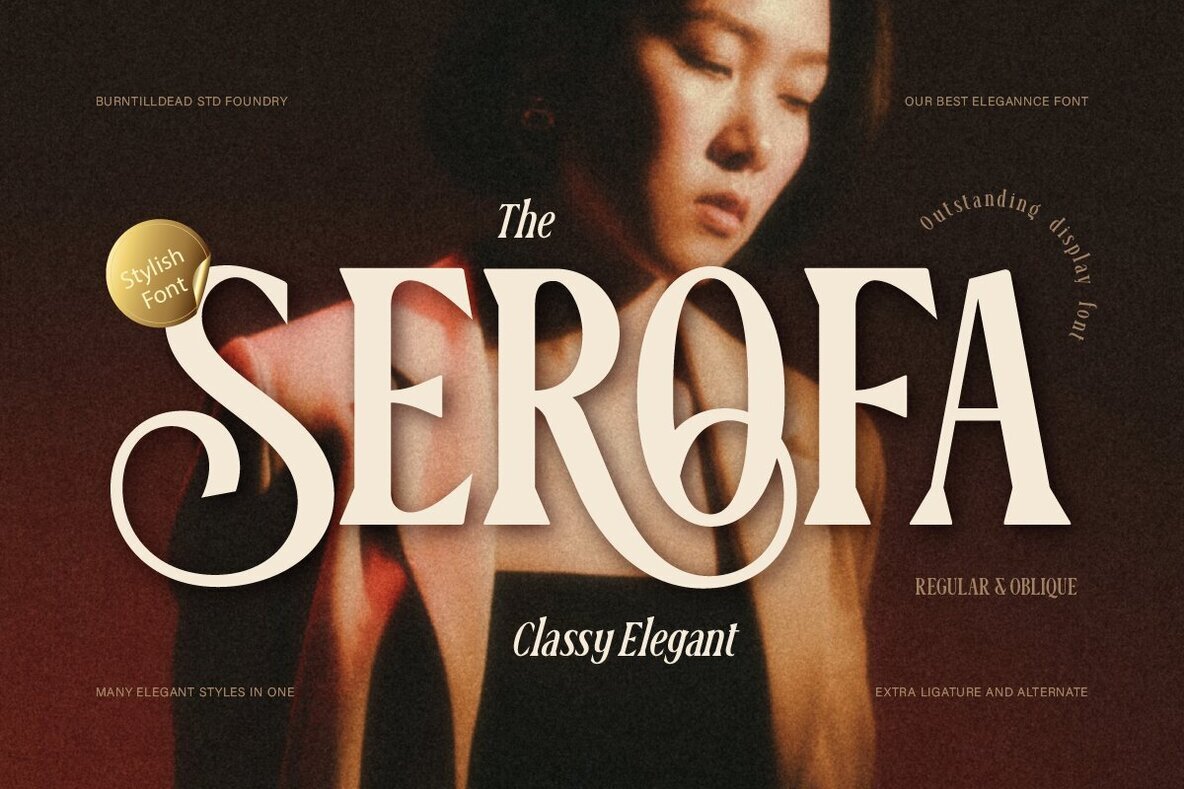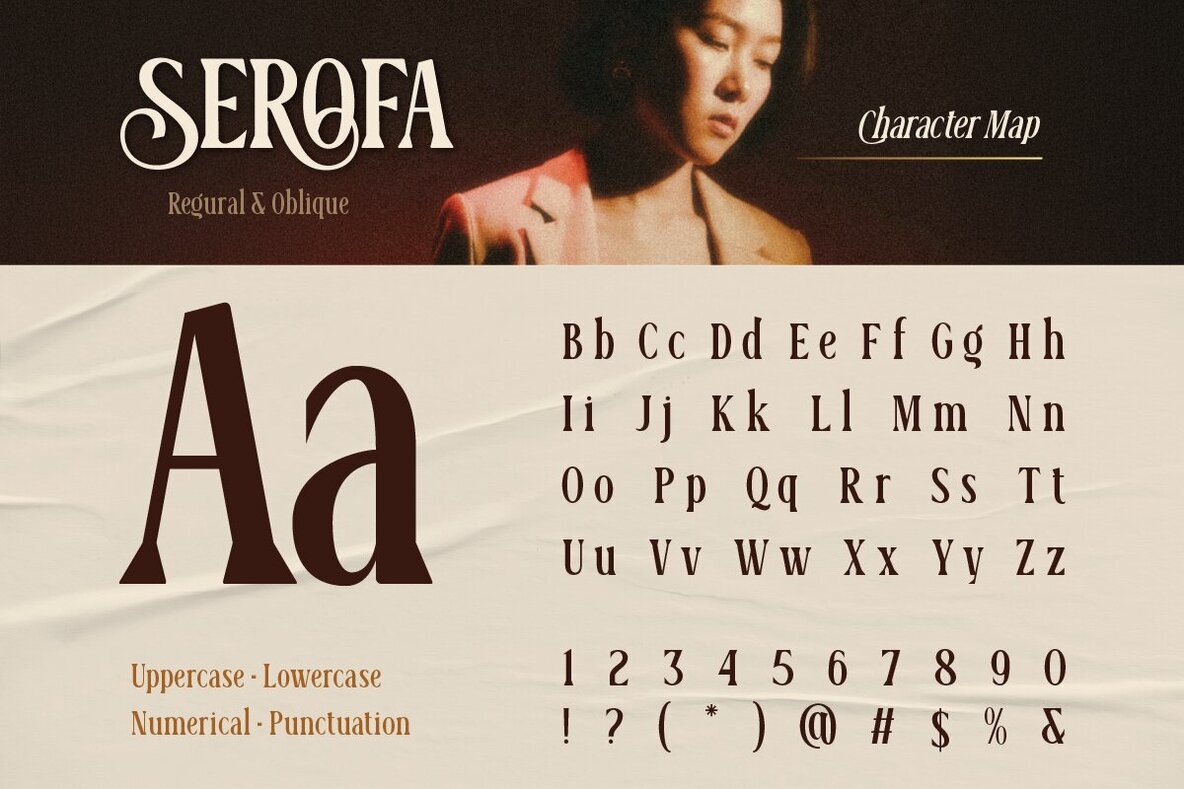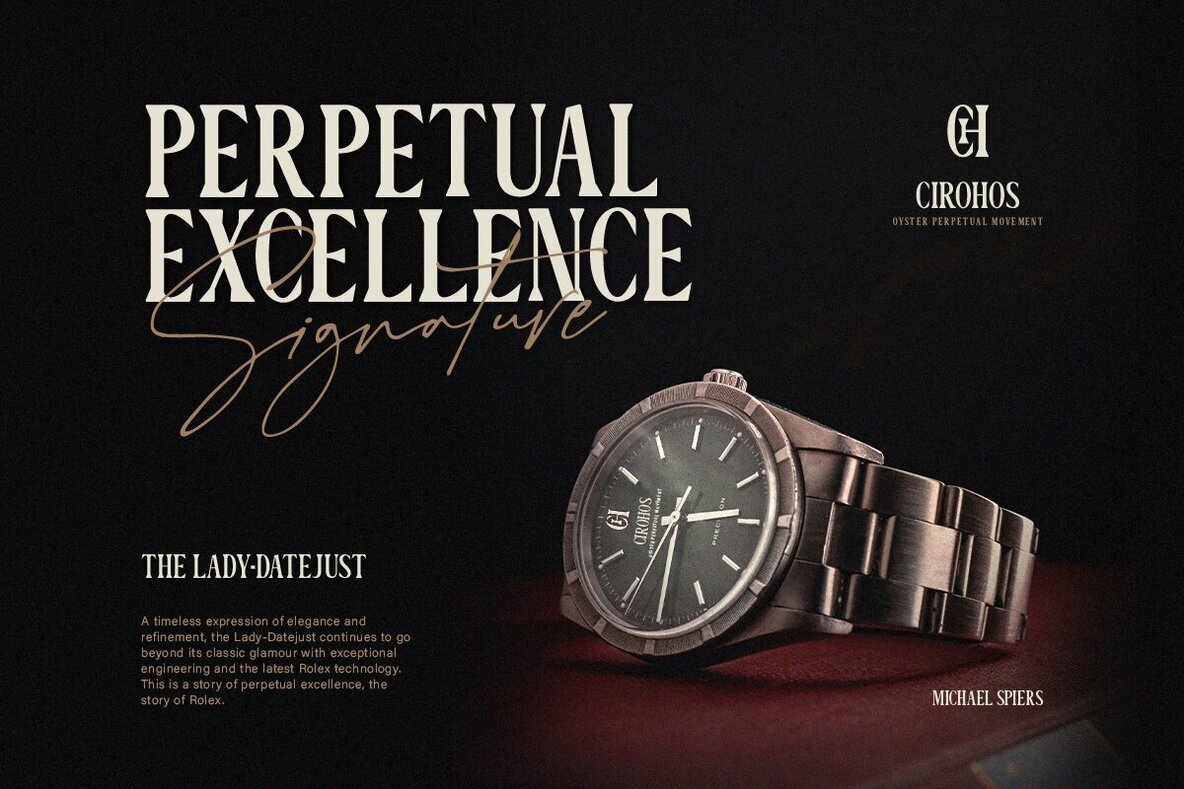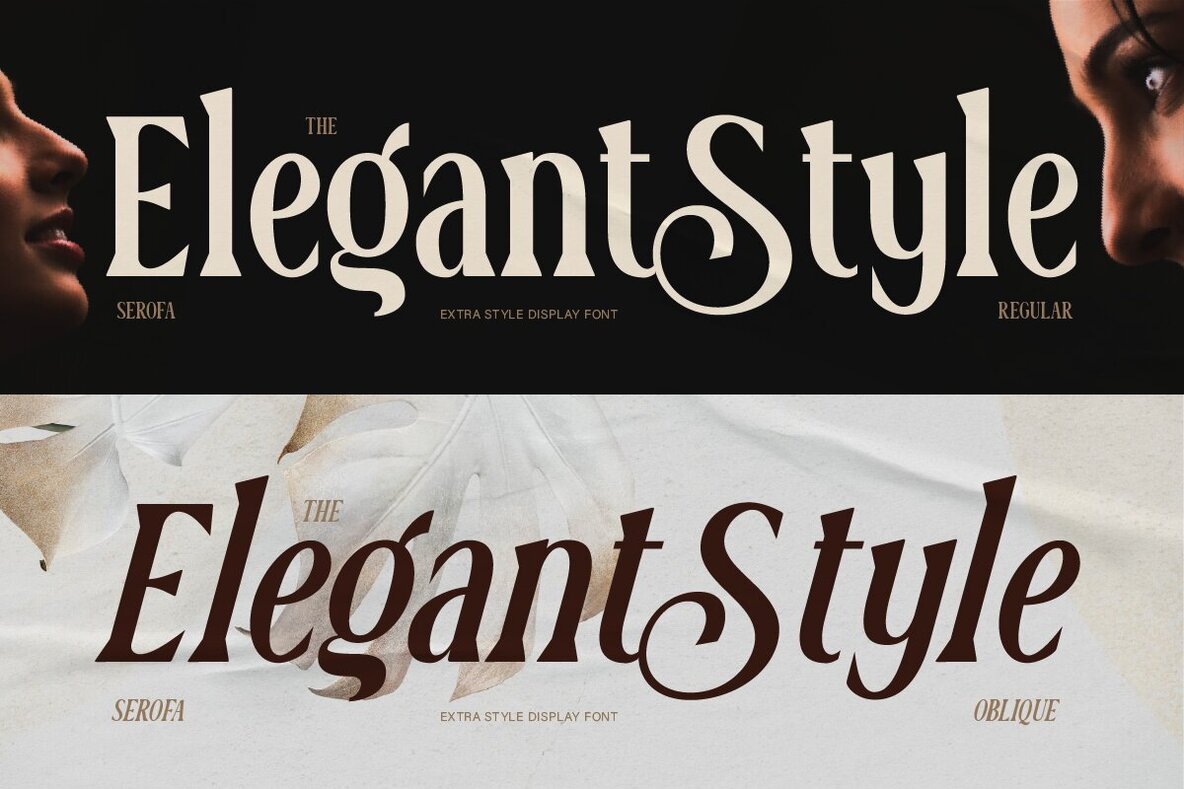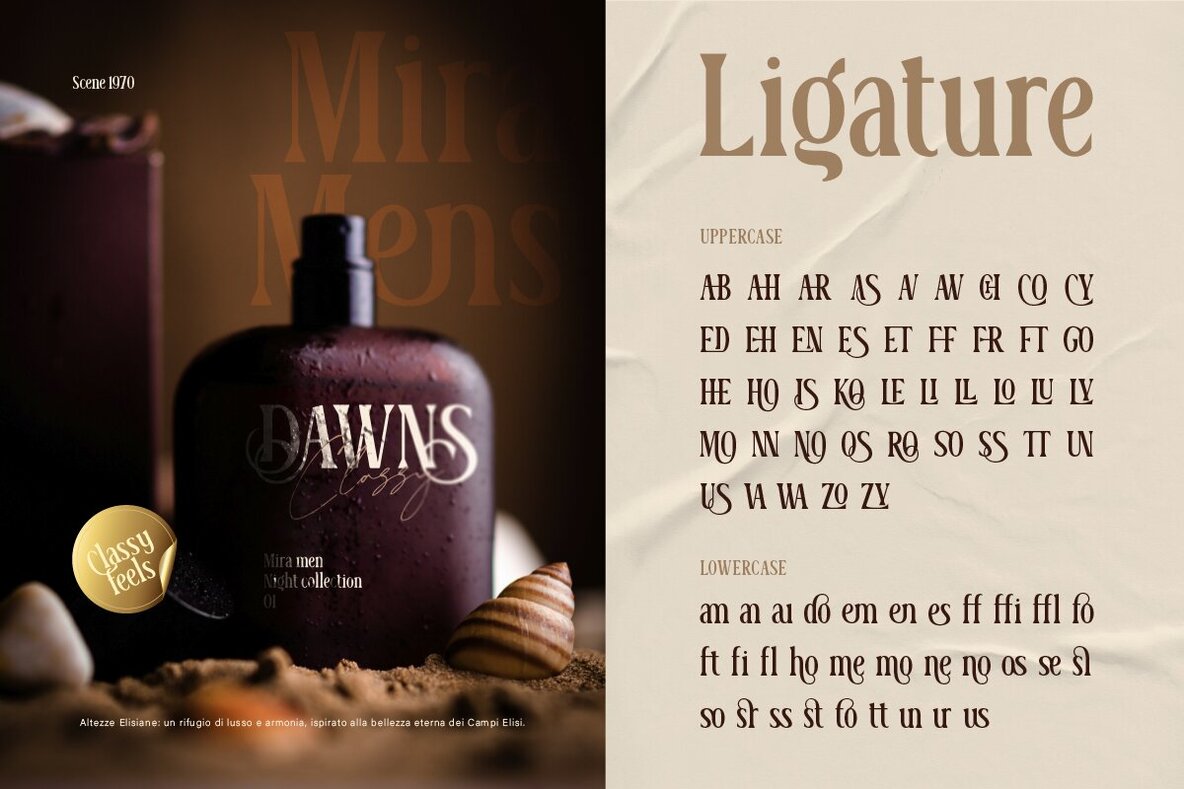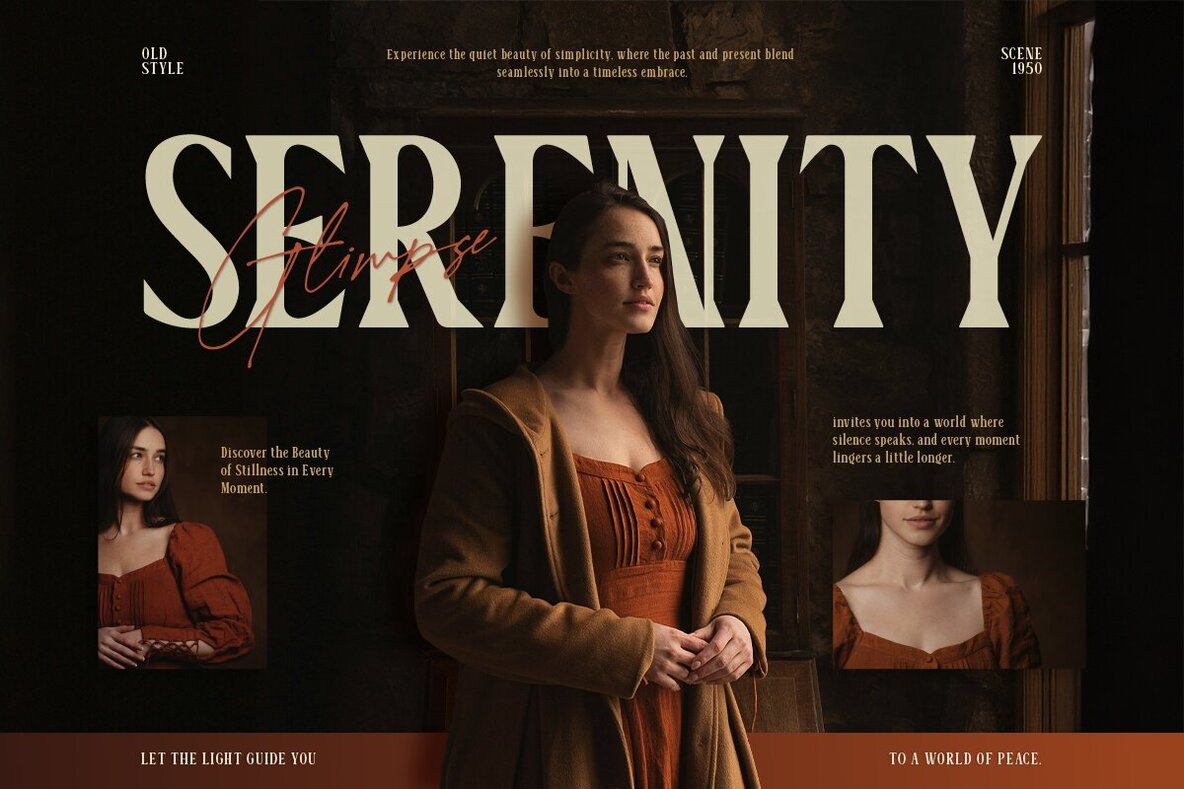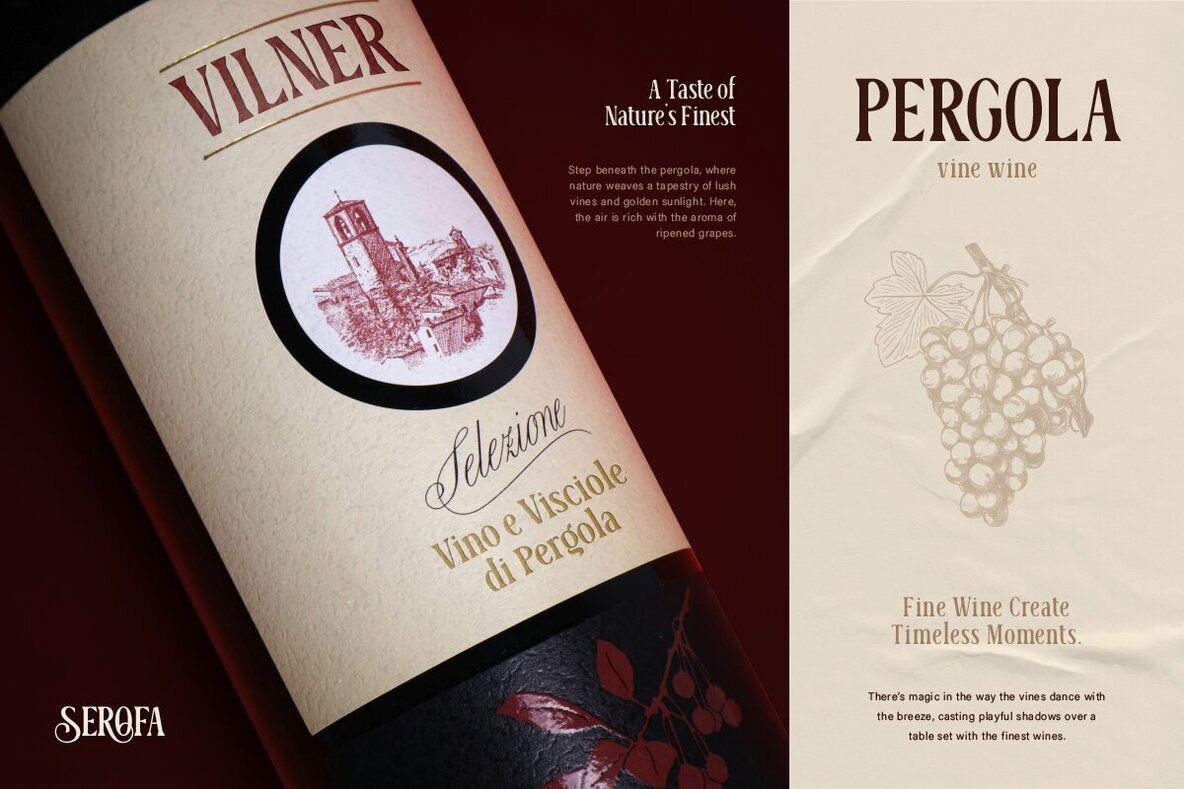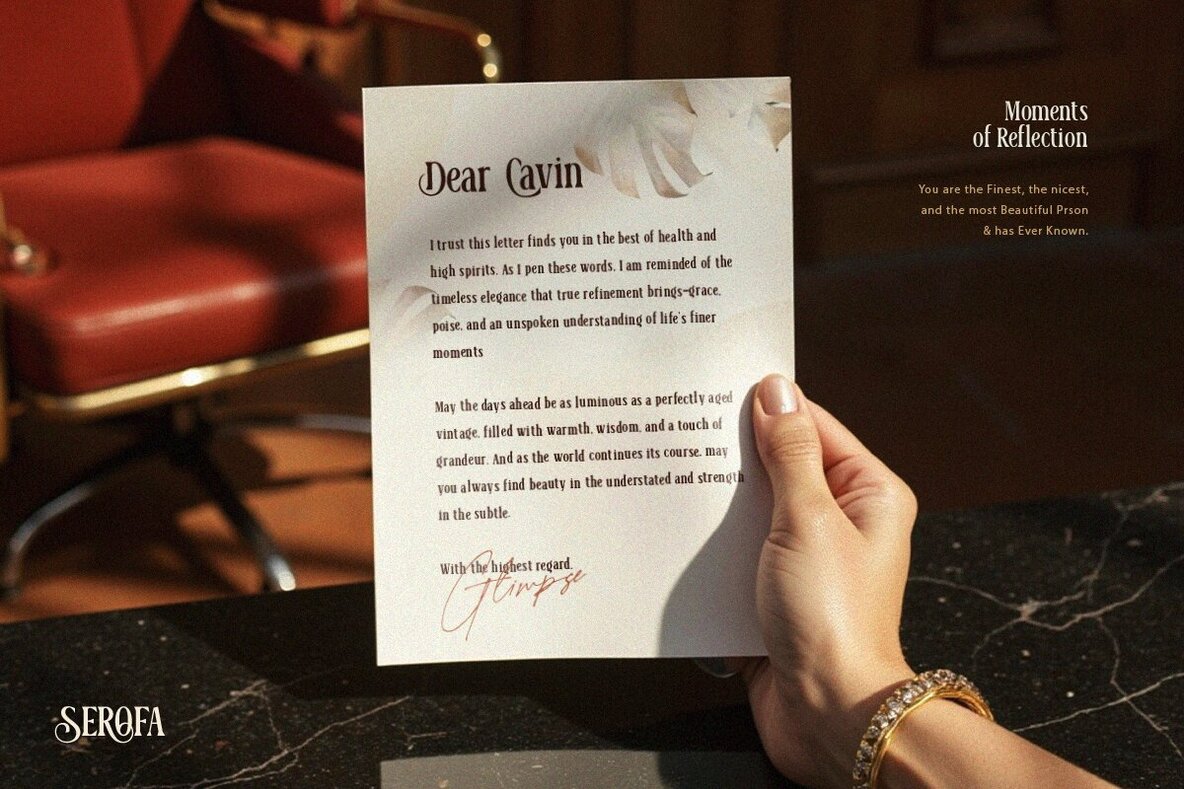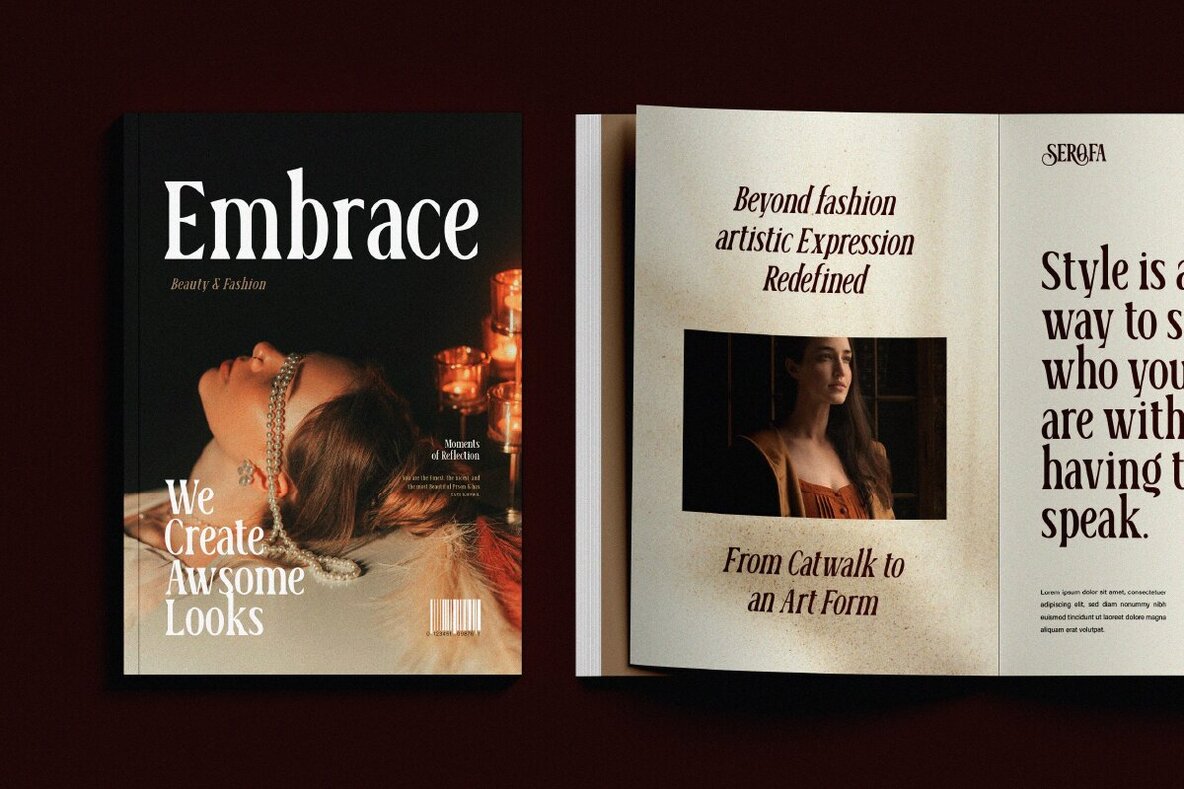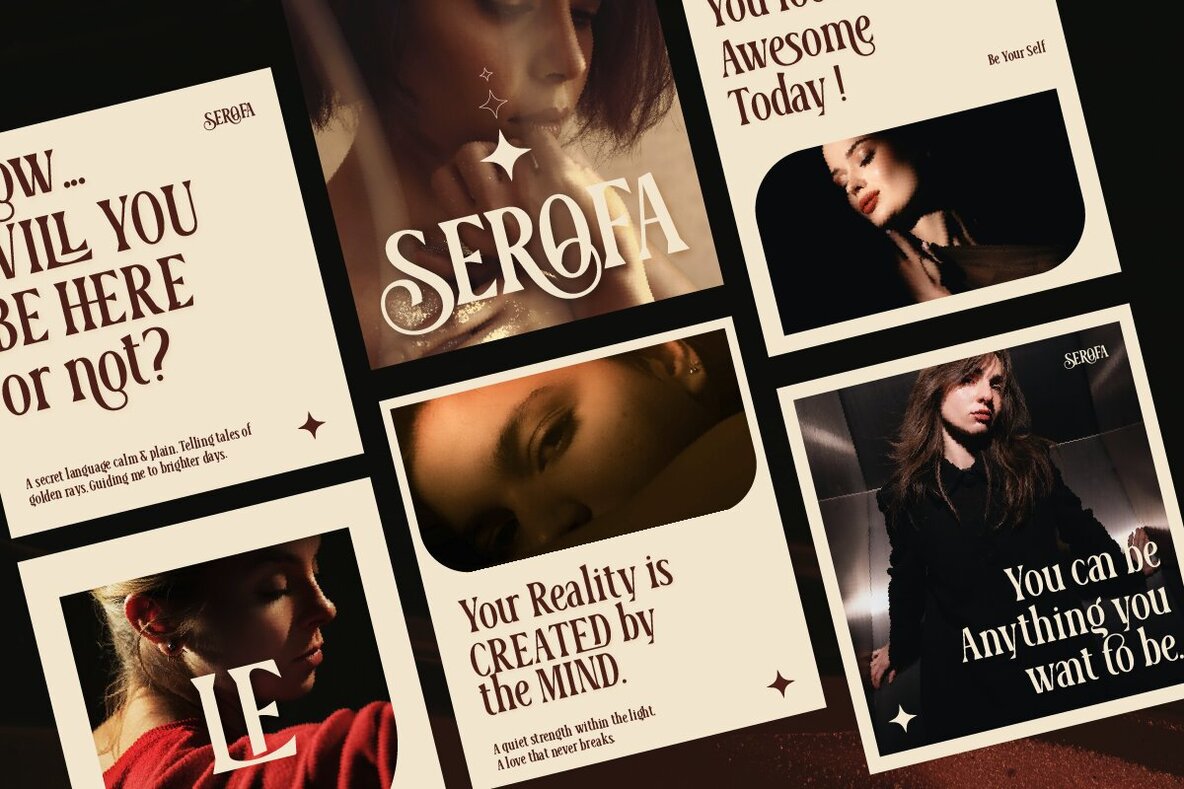
Serofa Font
Serofa Regular
Serofa Oblique
Meet Serofa, an elegant serif typeface that seamlessly merges traditional sophistication with modern luxury. Its bold letterforms and artistic curves deliver a powerful yet refined touch to your designs, offering the perfect blend of strength and elegance. Whether you're working on luxury branding or crafting captivating editorial layouts, Serofa's decorative curves and stylish ligatures will effortlessly elevate your aesthetic vision. Use Serofa for high-end fashion campaigns, chic magazine covers, sleek cosmetics packaging, sophisticated wedding invitations, or impactful logos. Wherever you apply it, Serofa brings a touch of class and elegance to your creative projects.Serofa: A Timeless Serif Font